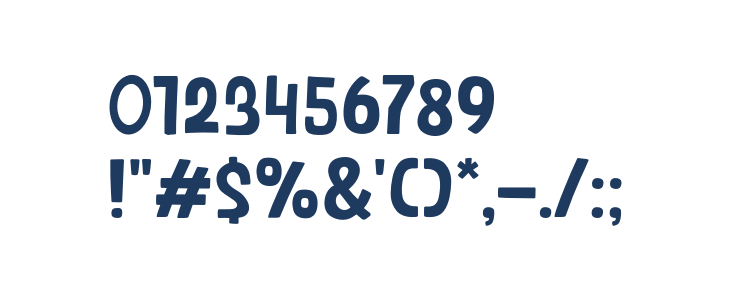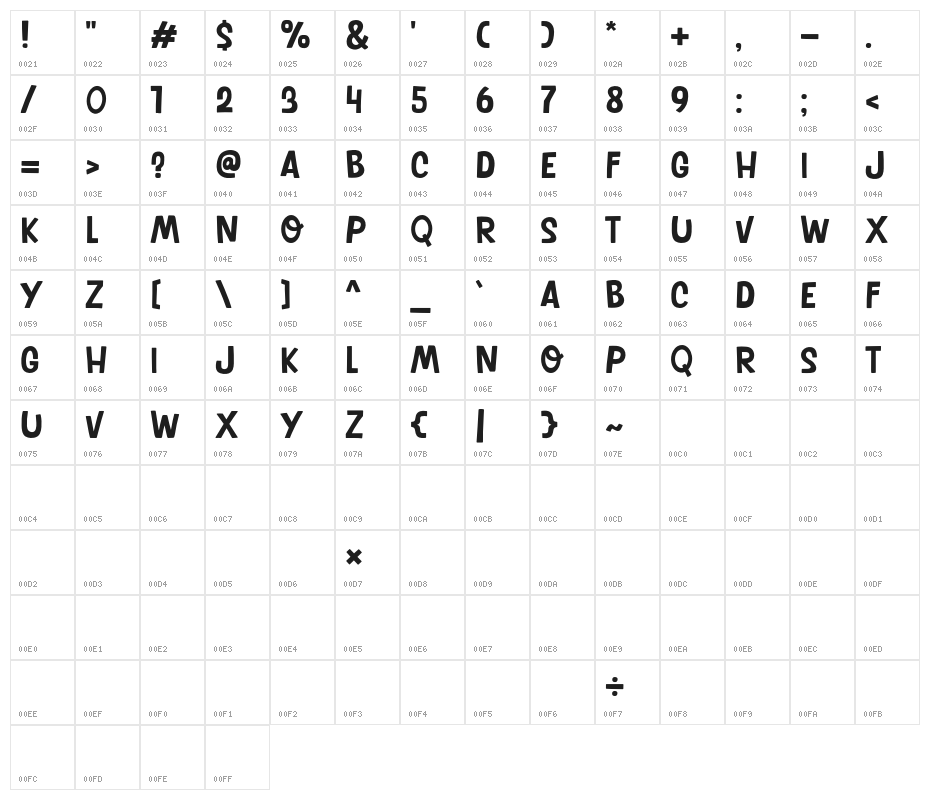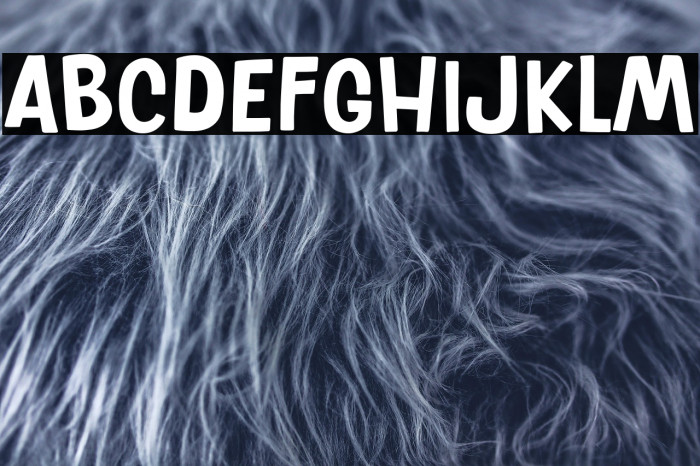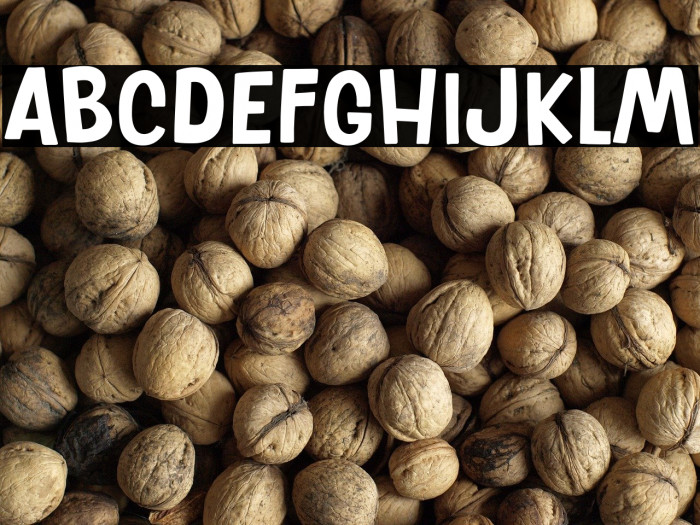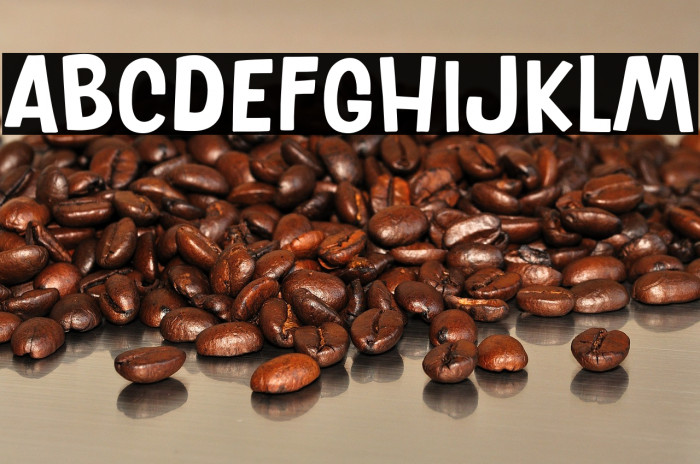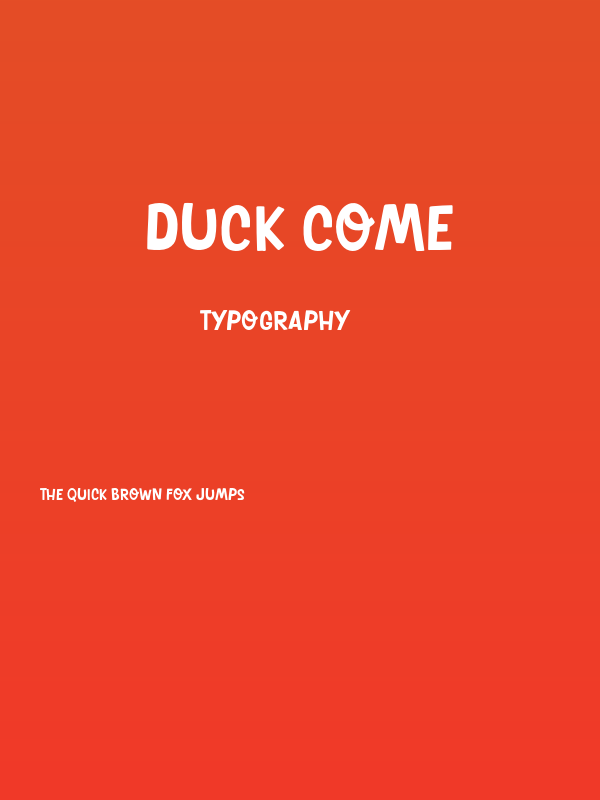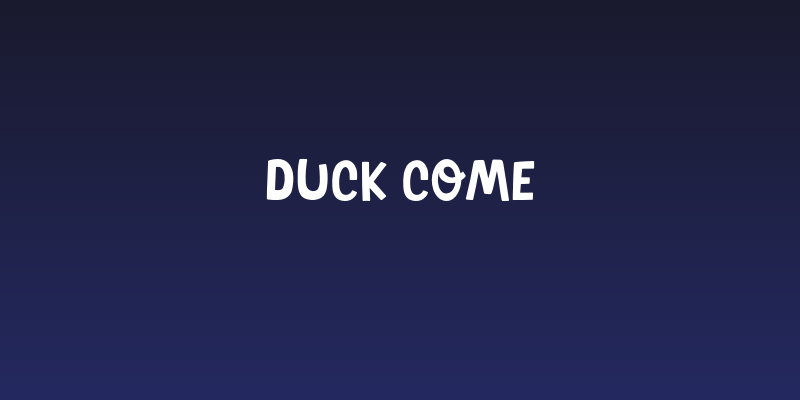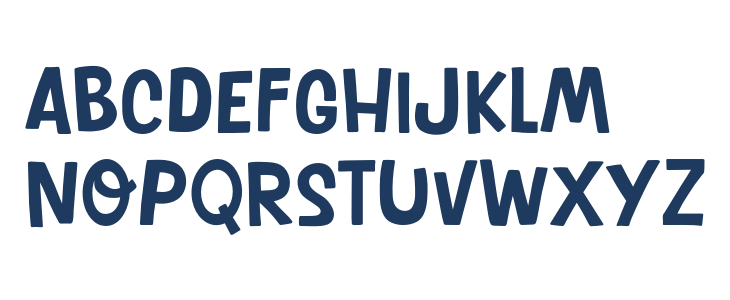
Duck Come Font
Duck Come Description
This playful and bold font features a unique and quirky style, characterized by its rounded and slightly irregular letterforms. The uppercase letters have a whimsical charm, with some letters featuring unexpected curves and angles, adding to its playful nature. The lowercase letters maintain this playful aesthetic, with a consistent stroke width that gives the font a cohesive look. The numerals are bold and easy to read, while the special characters retain the same playful style, making them suitable for a variety of creative applications. Overall, this font exudes a sense of fun and creativity, making it perfect for projects that aim to capture attention and convey a lighthearted message.
| Overall Style | Playful, Quirky, Fun |
| Use Case | Headlines, Posters, Branding |
| Proposed Projects | Ideal for children's books, playful branding, posters, and creative social media graphics. |